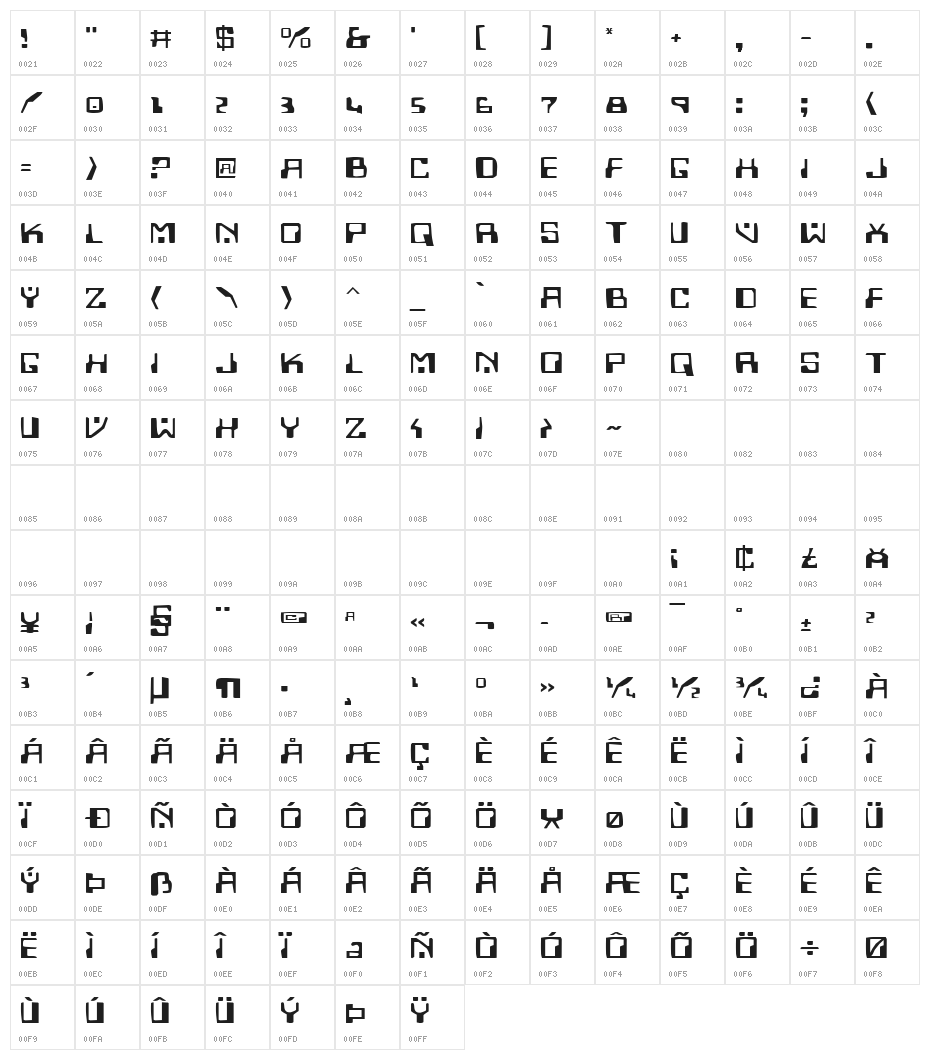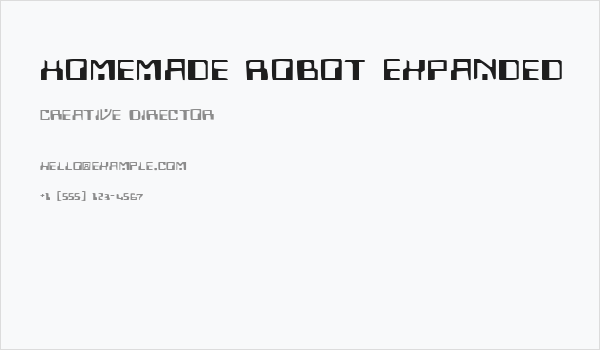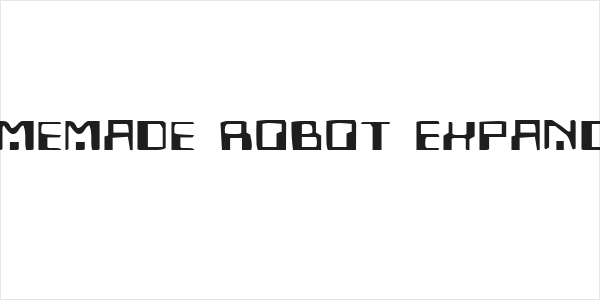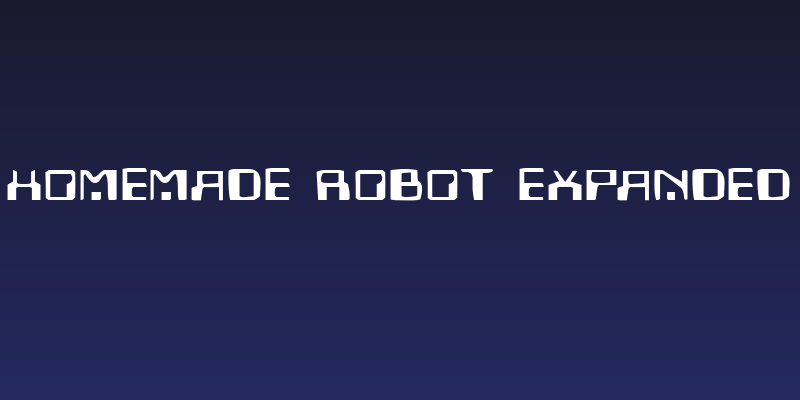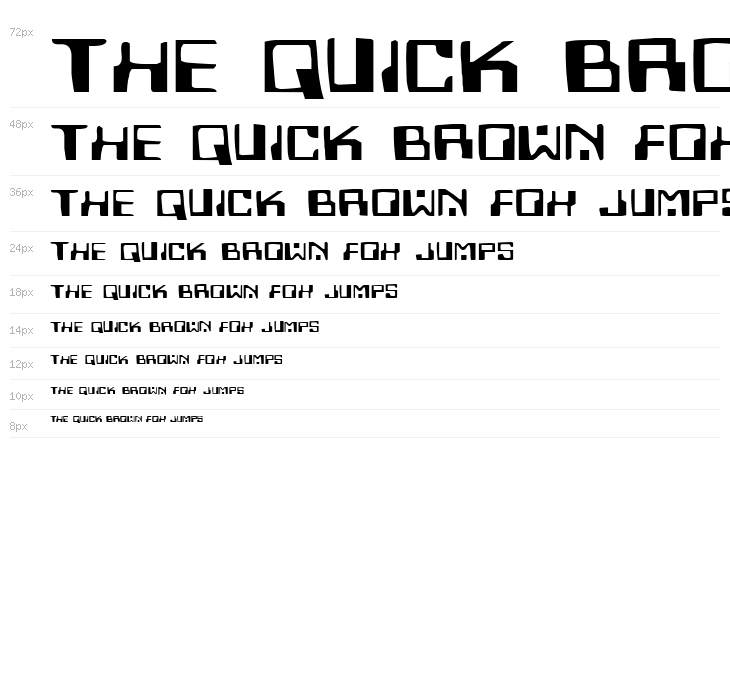
Homemade Robot Expanded Font
Homemade Robot Expanded Description
This font features a bold and futuristic design with a distinct robotic aesthetic. The characters are constructed with sharp angles and geometric shapes, giving them a mechanical and industrial feel. The uppercase and lowercase letters maintain a consistent style, with a uniform width that enhances readability. The numbers and special characters follow the same design principles, ensuring a cohesive look across all elements. The font's expanded width adds a sense of space and modernity, making it suitable for attention-grabbing headlines and display purposes.
| Overall Style | Futuristic, Industrial |
| Proposed Projects | Ideal for technology-themed projects, sci-fi posters, video game graphics, and branding for tech companies. |